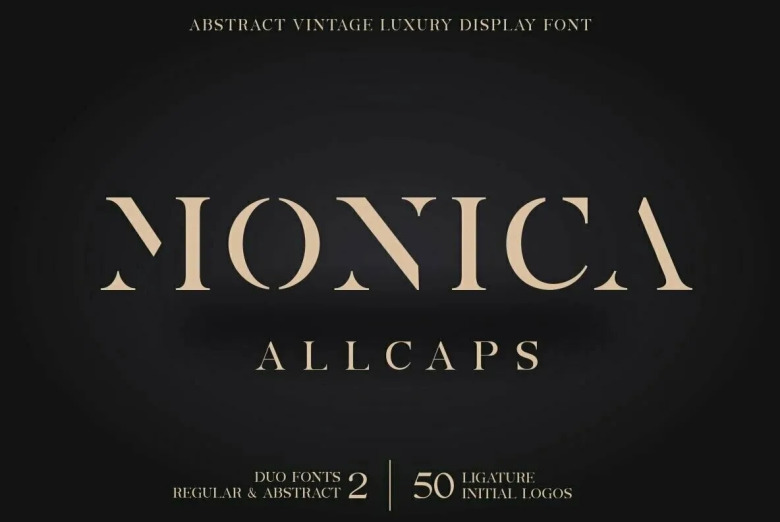
Monica Allcaps Font
Hi, this is my new font. Monica is an abstract vintage luxury display font. This fonts themed vintage, classic, chic and abstract. This font is an “All Caps” typeface and has ligatures and alternative styles. This font is great for creating desired projects like logos, posters, headlines, fashion and more.
Monica Allcaps Serif Font